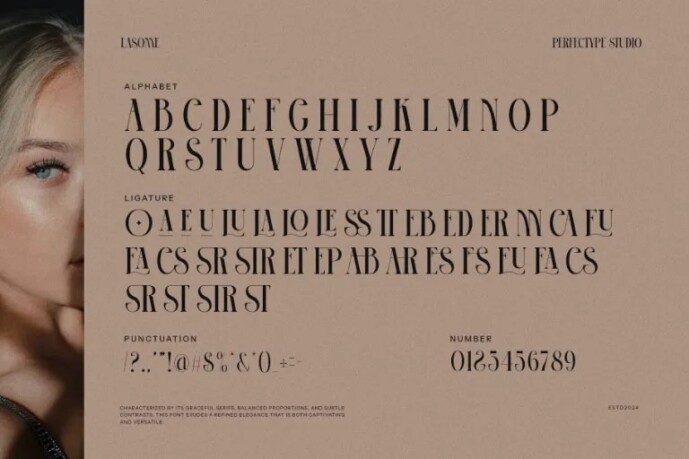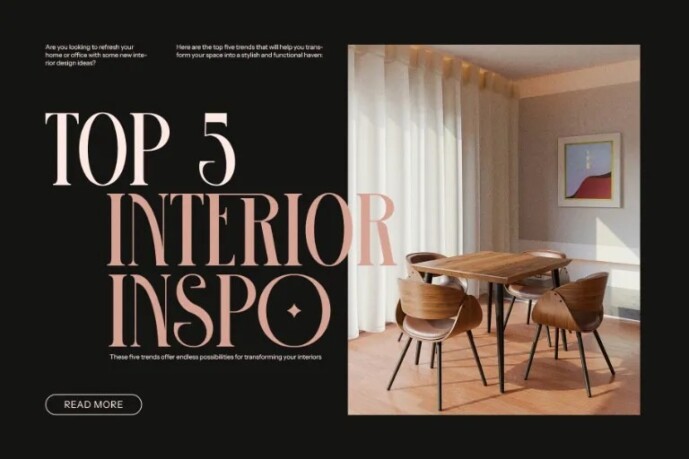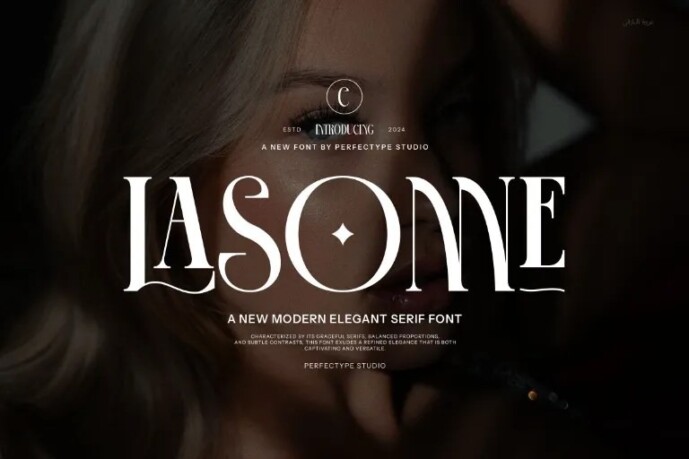
Lasonne Font
Designer: Arfianto
Lasonne Font is a stylish serif font that combines elegance with smooth, connected letters (ligatures). Its clean and classic look makes it perfect for creating beautiful designs, from logos to invitations. The unique, flowing letter combinations give it a modern and sophisticated touch, making any text stand out.